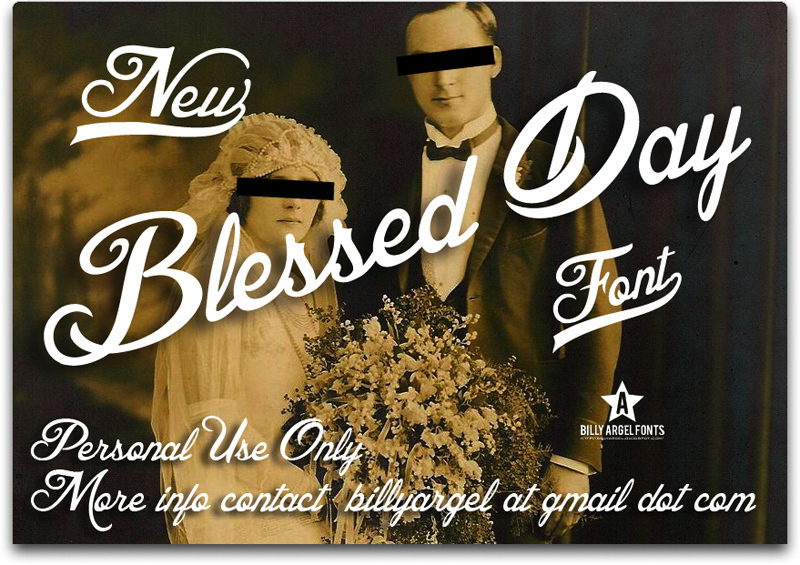
Blessed Day by Billy Argel is a free calligraphic script with sweeping capitals and pronounced thick-to-thin strokes. Long curls, looping joins, and sharply tapered ends give the lettering the flourish of formal pen work, though the shapes remain lively rather than rigid.
Romance and celebration are its clearest subjects, making it a fitting choice for wedding invitations, beauty packaging, and fashion branding. The swashes can weave into floral artwork or ornamental borders, linking words to surrounding decoration.